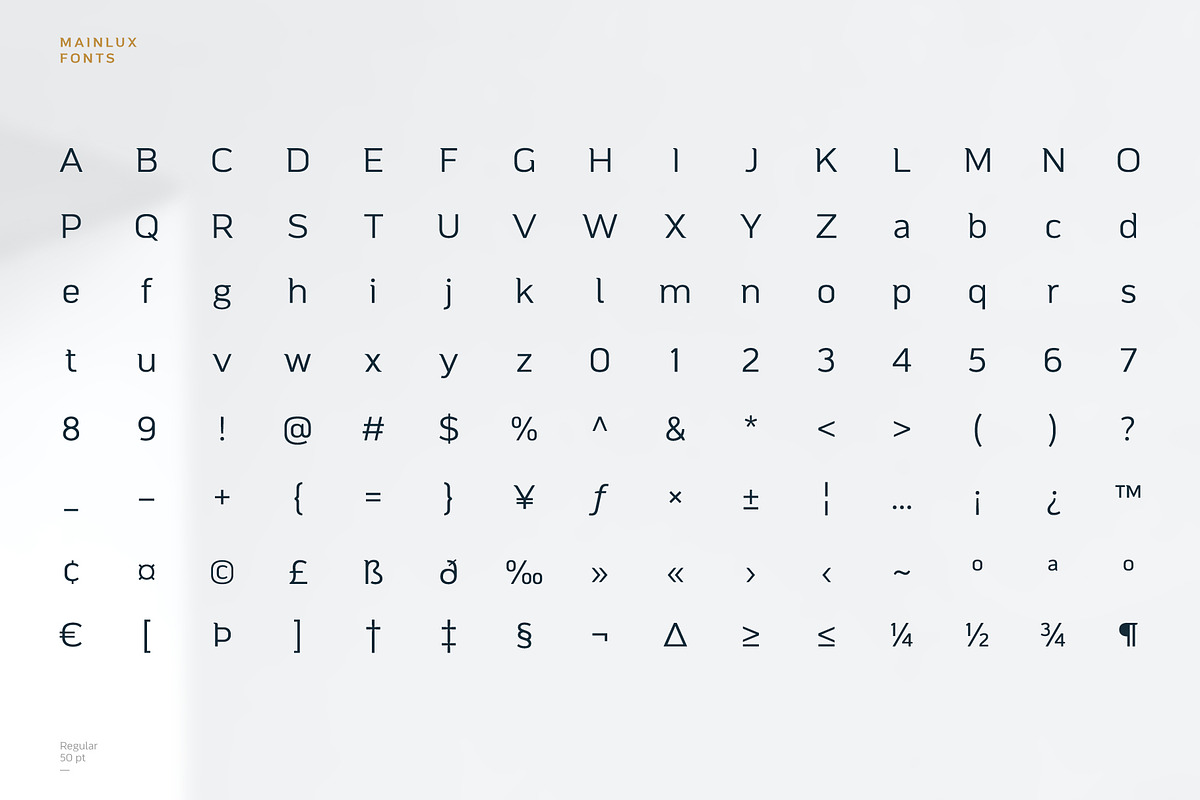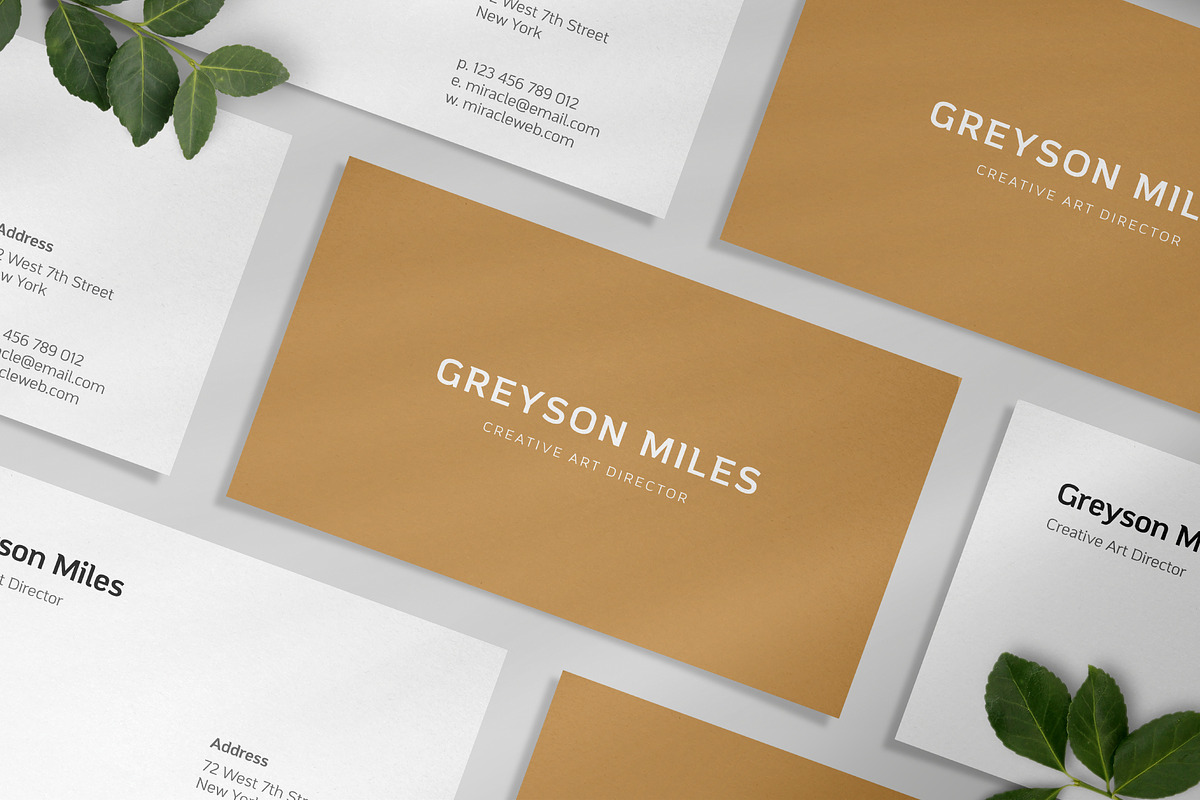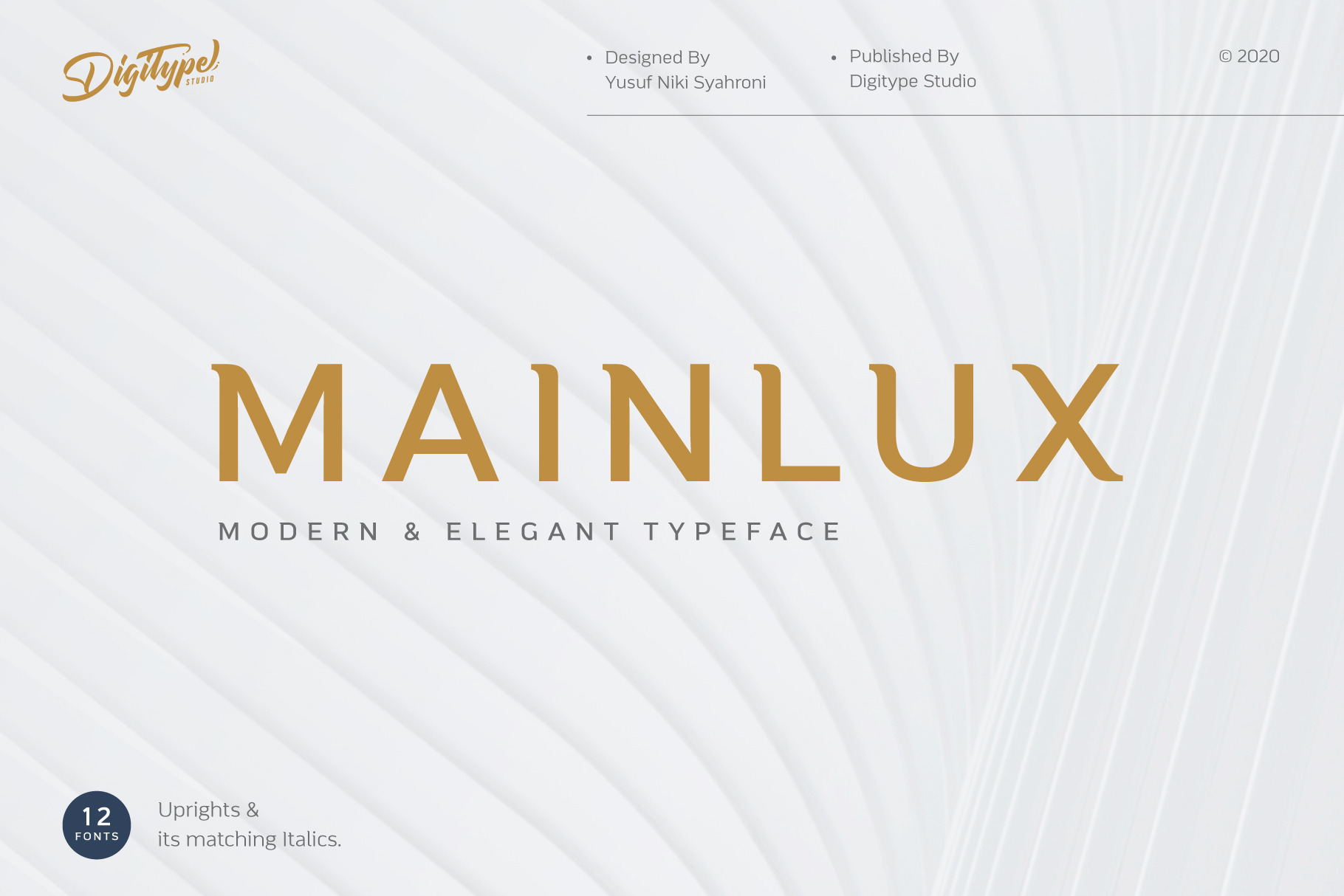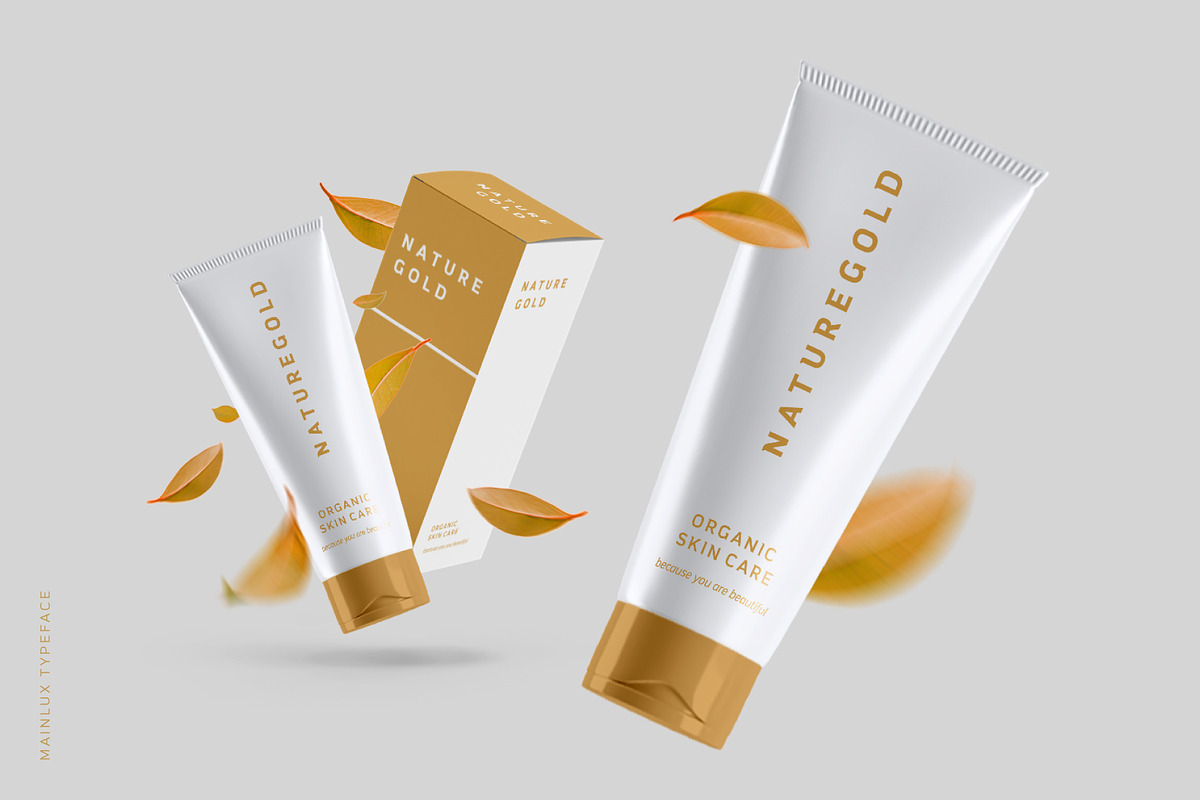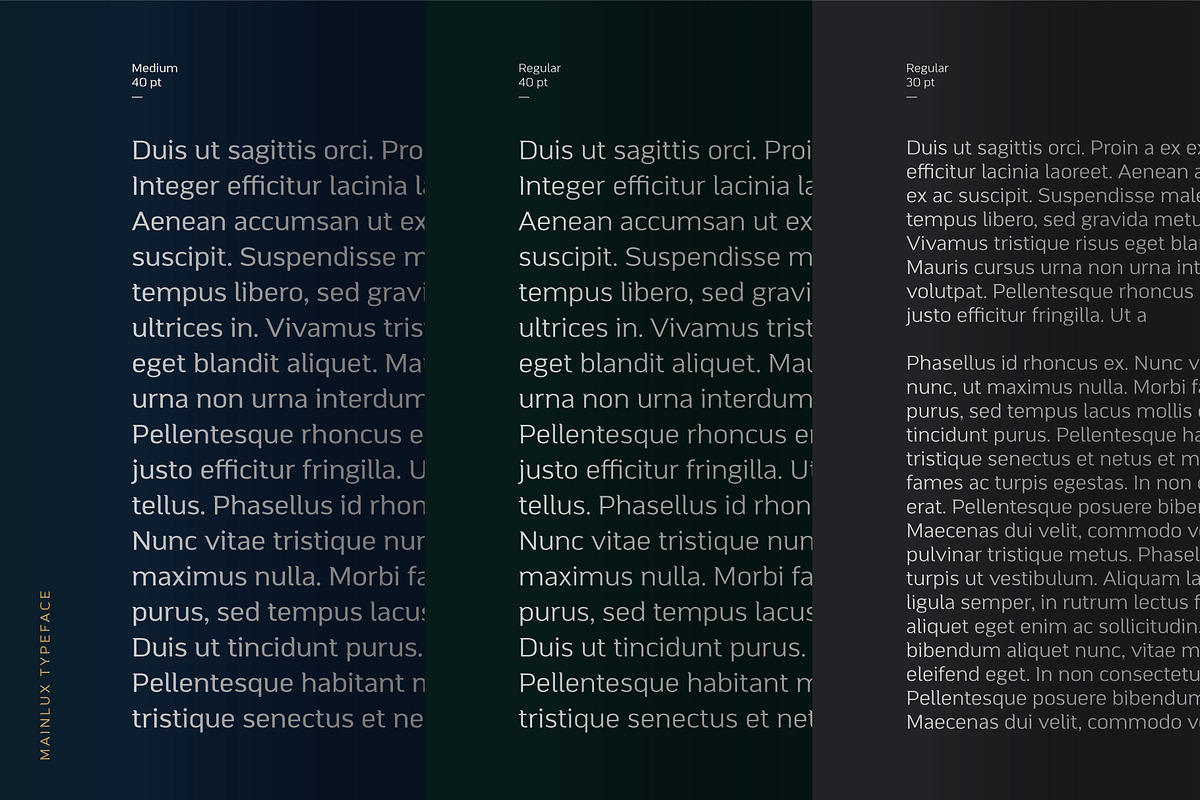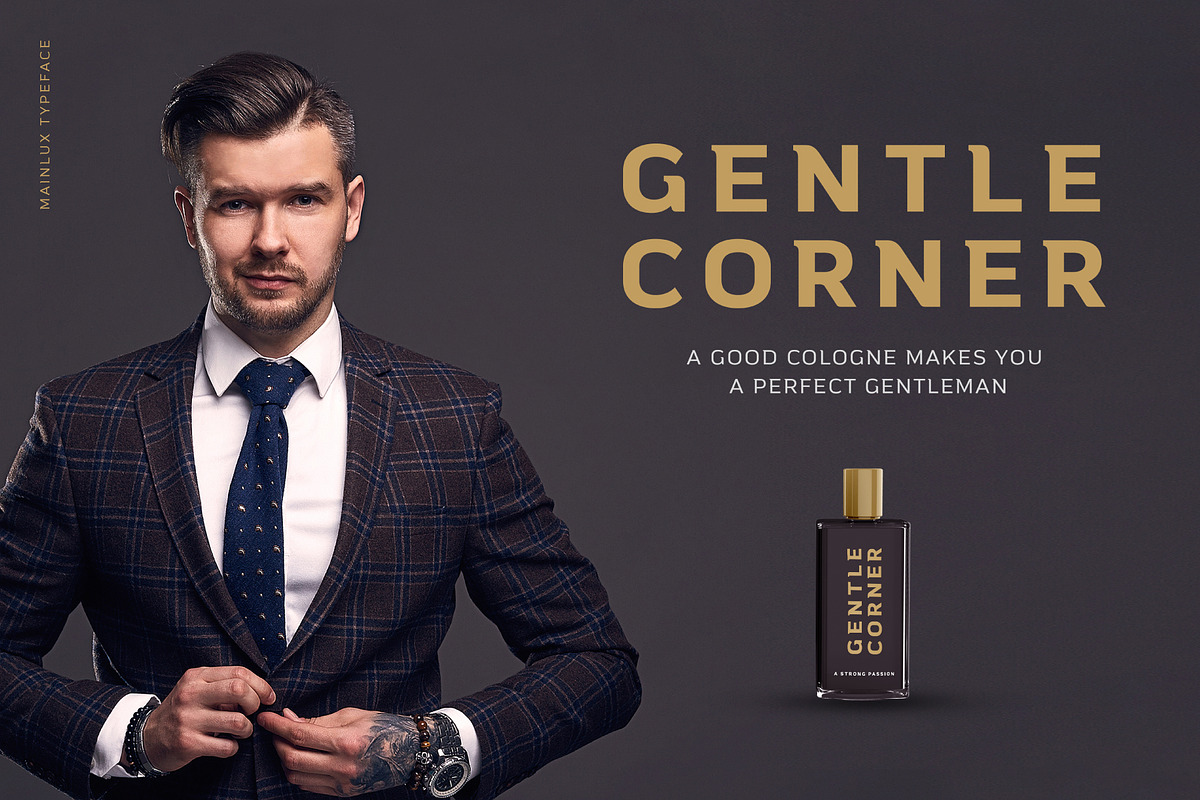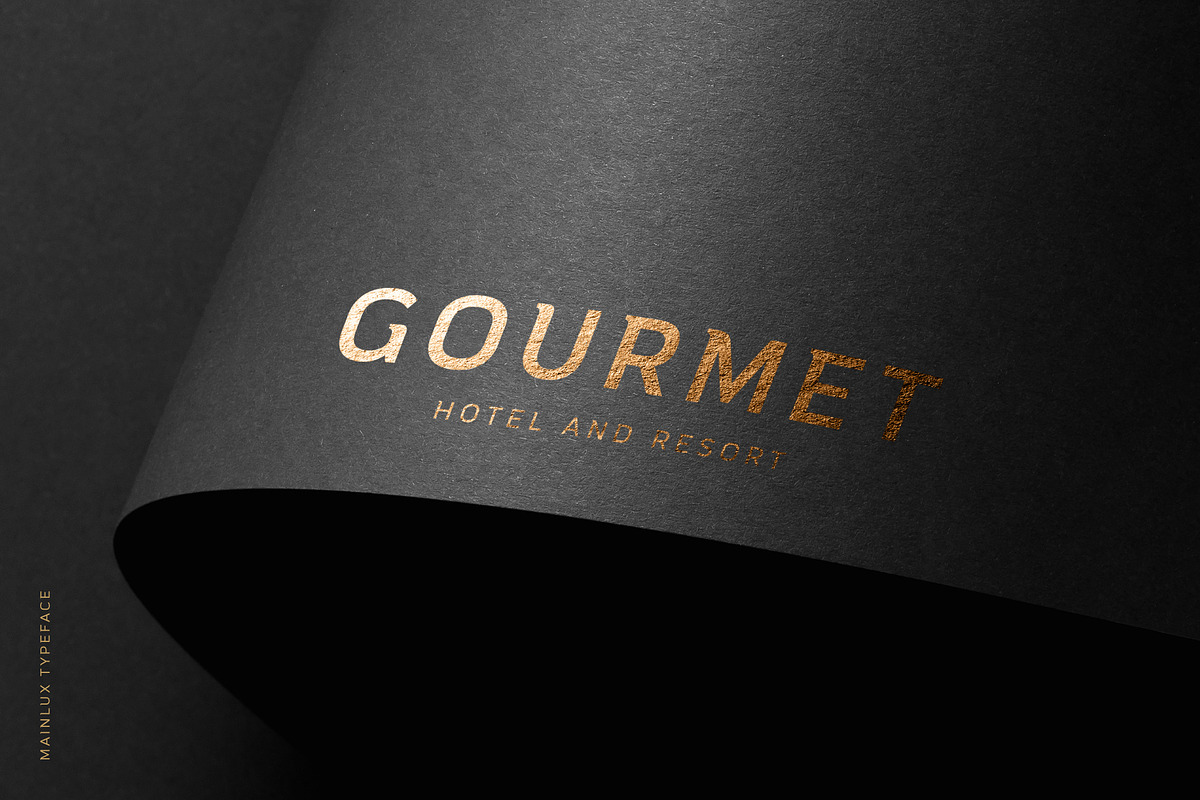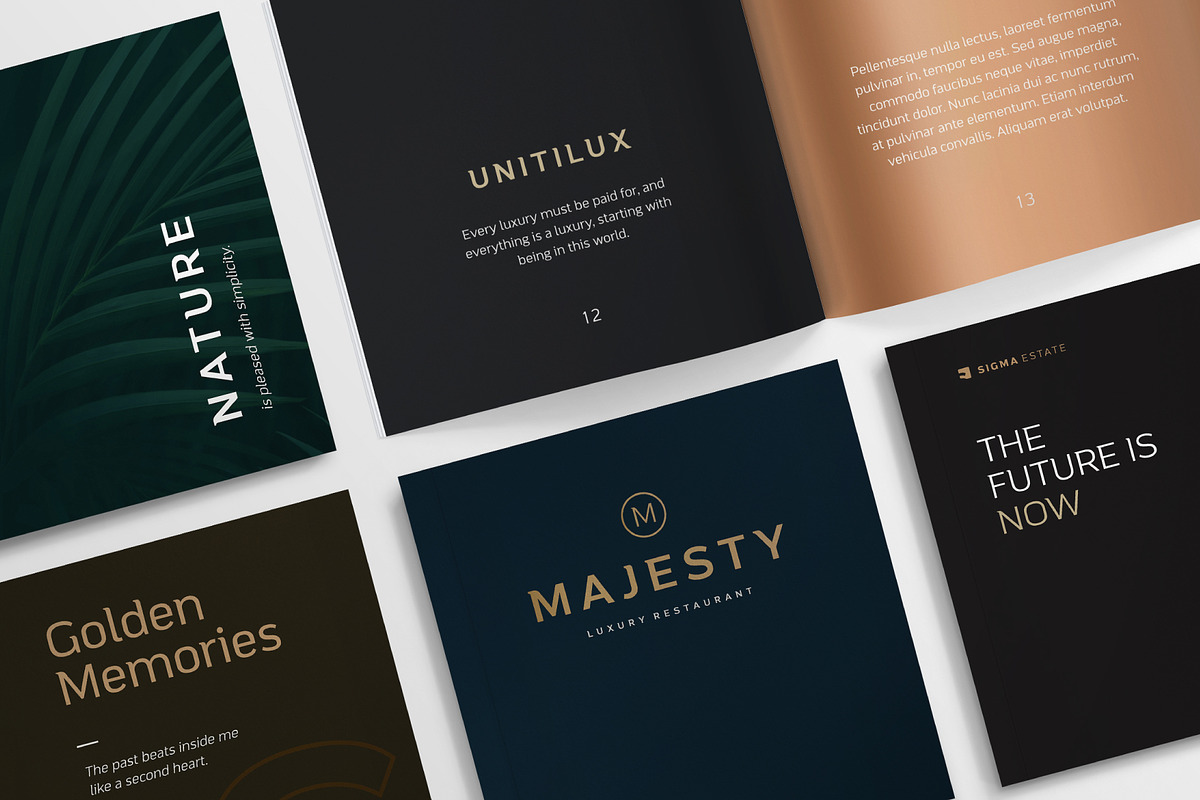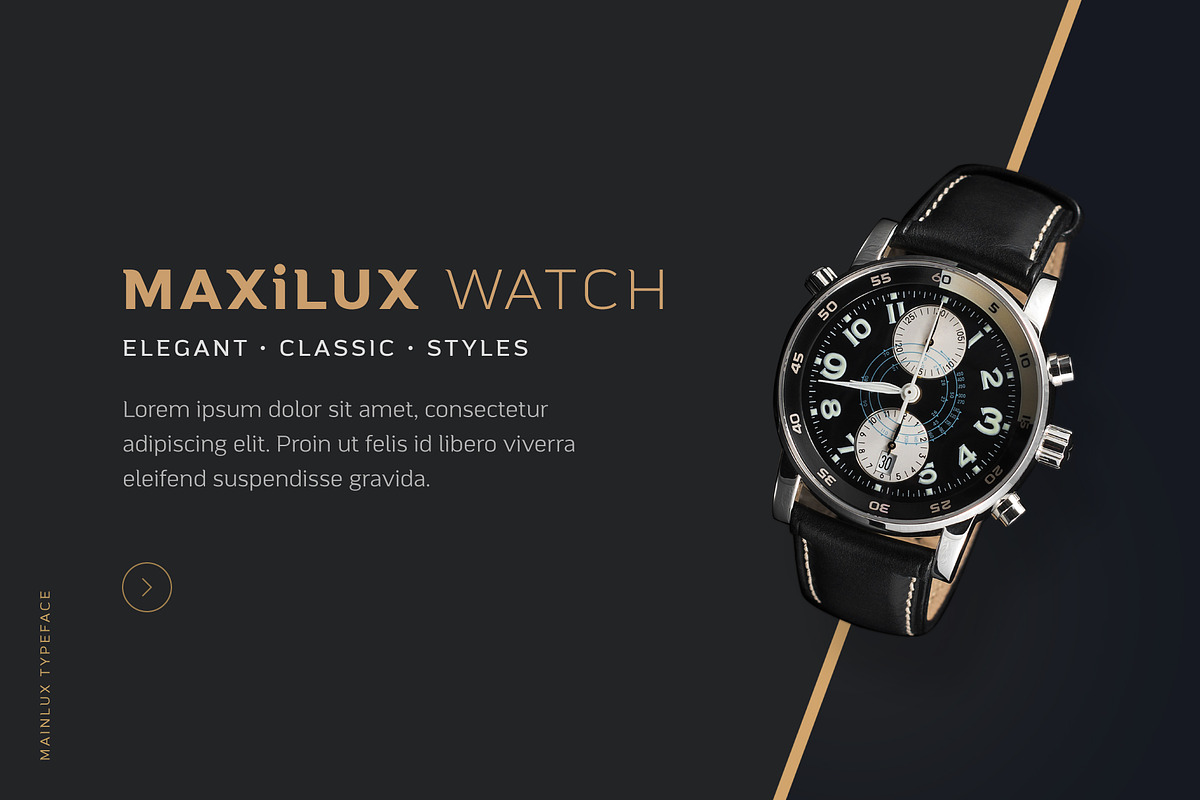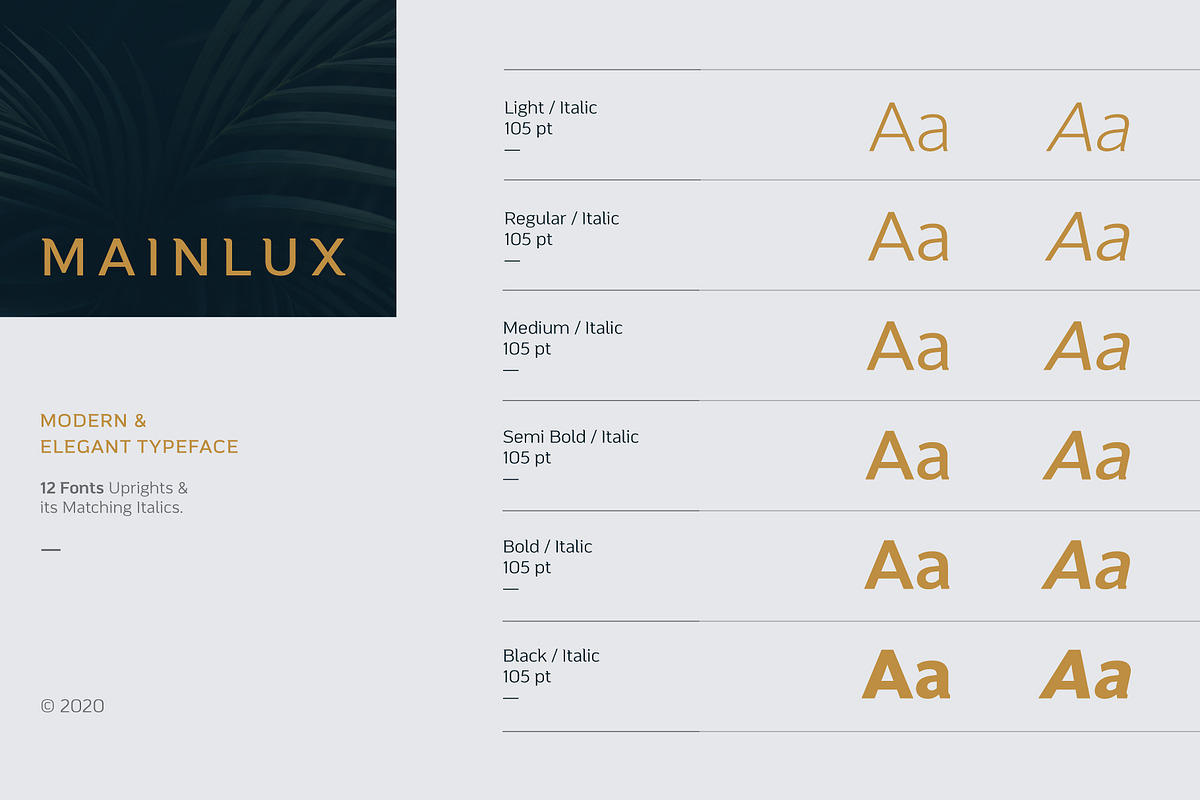
Mainlux Font
Mainlux is an elegant typeface family with a unique touch to each character. It comes in 12 weights, 6 straights & italics.
Mainlux was designed to give a luxurious impression to your artwork, products, web business cards, and various other needs. Each weight includes extended language support and standard ligature.